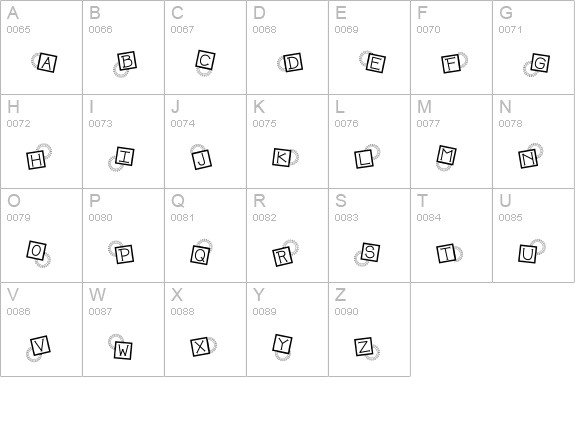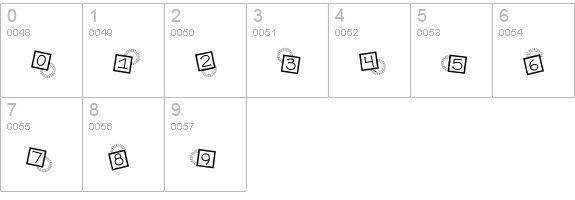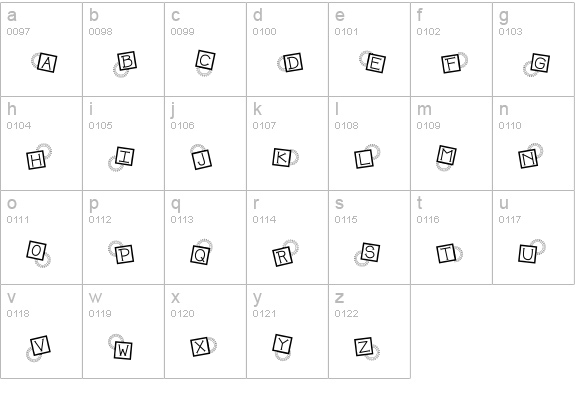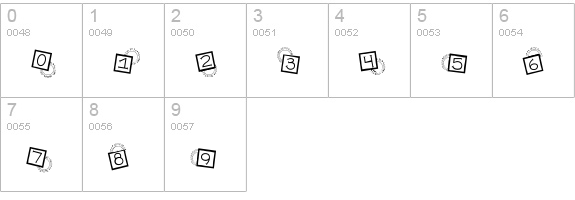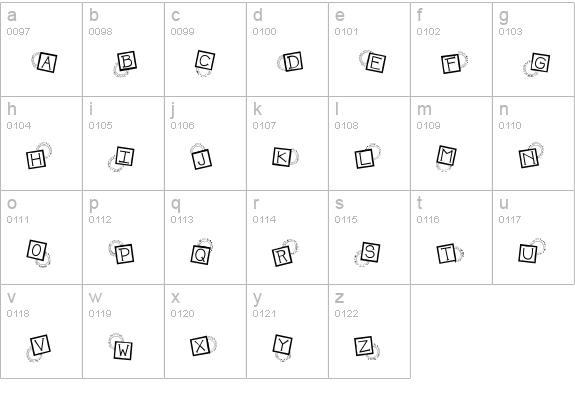
CK Sunshine Font Details
Introducing CK Sunshine font, a delightful and whimsical typeface that will bring a touch of sunshine to your designs. This playful font features a unique and cheerful style, perfect for adding a fun and friendly vibe to any project. With its flowing curves and quirky details, CK Sunshine is sure to capture attention and spread positivity wherever it is used. Best of all, CK Sunshine font is completely free to download at FontsMarket.com. Whether you're working on a branding project, greeting cards, invitations, or social media graphics, this font will add a sunny and uplifting touch to your creations. Embrace the warmth and joy of CK Sunshine font today and let your designs shine bright!